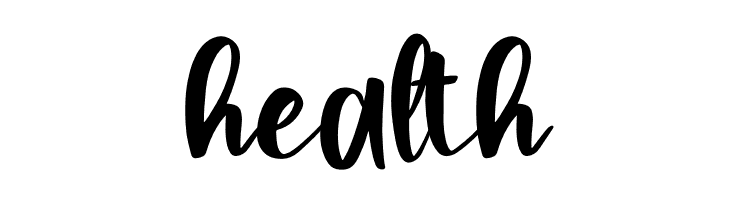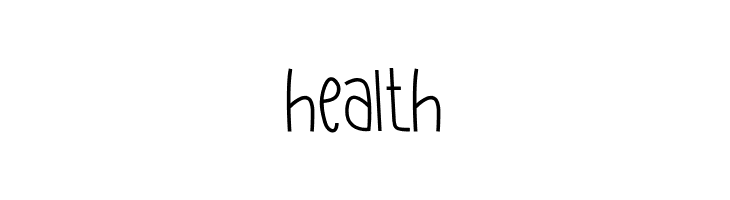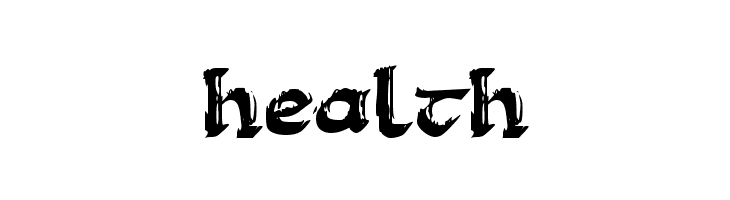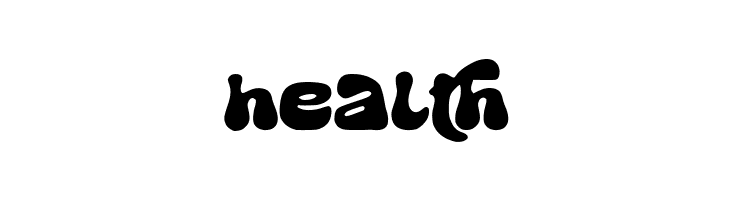
A bold, expressive script font with dynamic strokes and elegant curves.
An ornate and decorative font with intricate swirls and flourishes.
A playful, handwritten font with bold, rounded characters and unique flourishes.
A flowing, elegant script font with a handwritten appearance.
A dynamic, slightly italicized font with smooth curves and a modern classic appeal.
A bold, playful handwritten font with rounded edges and thick strokes.
A bold, hand-drawn font with a dynamic and energetic style.
A bold, playful font with a rope-like design and consistent stroke width.
A bold, playful font with rounded characters and a whimsical style.
A bold, extruded typeface with blocky, geometric shapes for impactful designs.
A bold, italicized font with a striking extruded effect and strong visual impact.
A bold, italicized font with thick strokes and a geometric design.
Bold, italicized outline font with a geometric and modern style.
Bold, outlined geometric font with a strong, blocky appearance.
A casual, handwritten script with tall, narrow, and rounded letterforms.
A bold, expressive script font with a modern yet classic appeal.
A graceful and elegant script font with flowing cursive letters and intricate swashes.
An elegant, cursive font with high contrast and decorative swirls.
A flowing, cursive font with elegant, interconnected strokes.
A stylish cursive font with elegant, flowing characters.
A bold, expressive script font with flowing, cursive letterforms.
A modern, elegant script font with flowing, cursive strokes and dynamic contrast.
An elegant, flowing script font with graceful, cursive strokes.
A modern, flowing script font with elegant, interconnected letters.
A bold, decorative script font with elegant, flowing strokes.
A lively handwritten font with fluid, dynamic strokes and a modern artistic flair.
A dynamic handwritten font with fluid, natural strokes and playful uppercase letters.
A playful and elegant script font with smooth, rounded letterforms.
A flowing, cursive font with elegant, sweeping strokes and a modern flair.
A graceful and modern script font with flowing, cursive letters.
A bold, dynamic script font with interconnected, flowing characters.
Playful handwritten script font.
A bold, high-contrast font with a dynamic and striking appearance.